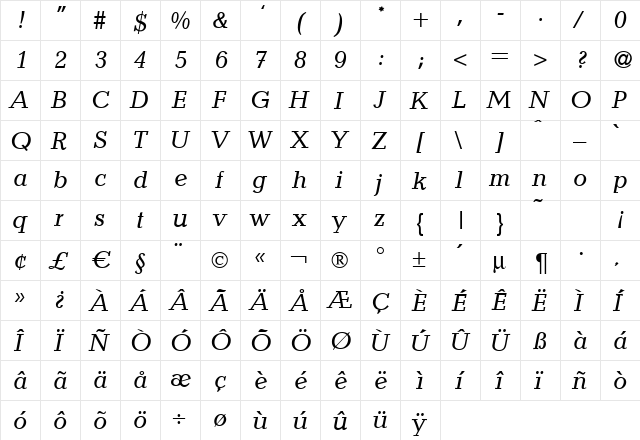
Quantity Italic
Design Context for Quantity Typeface
Quantity offers clean, dependable letterforms without strong stylistic allegiance, making it a practical choice for designers who need flexibility. The slanted form adds forward momentum and visual energy.
Pro Tip: Use Quantity for emphasis, pull quotes, and subheadings where its slanted energy can add rhythm to the layout.